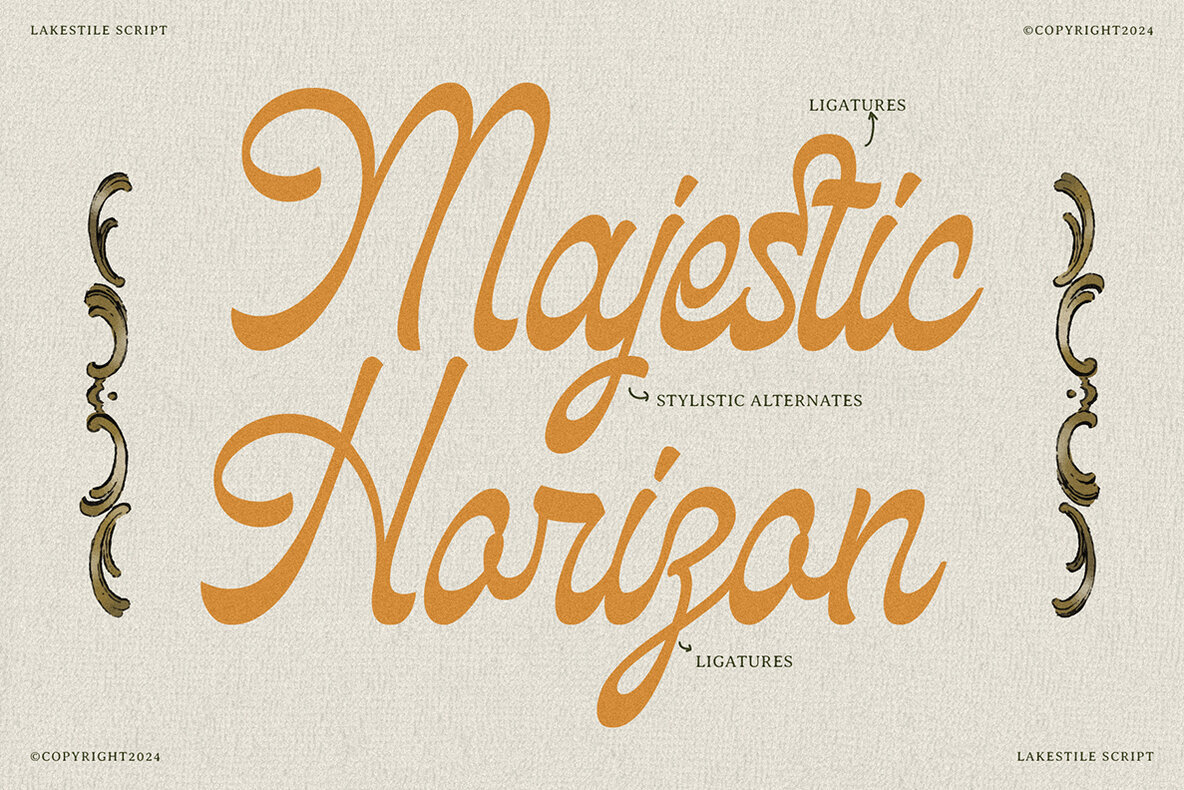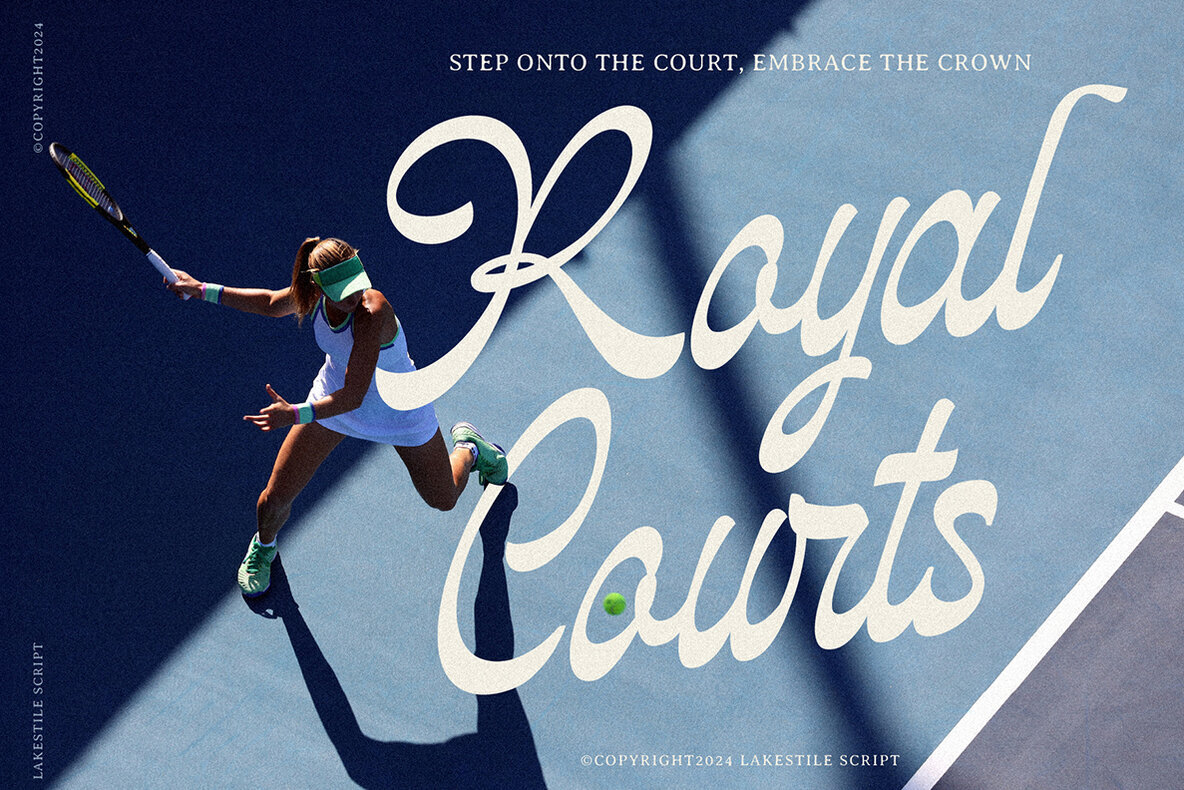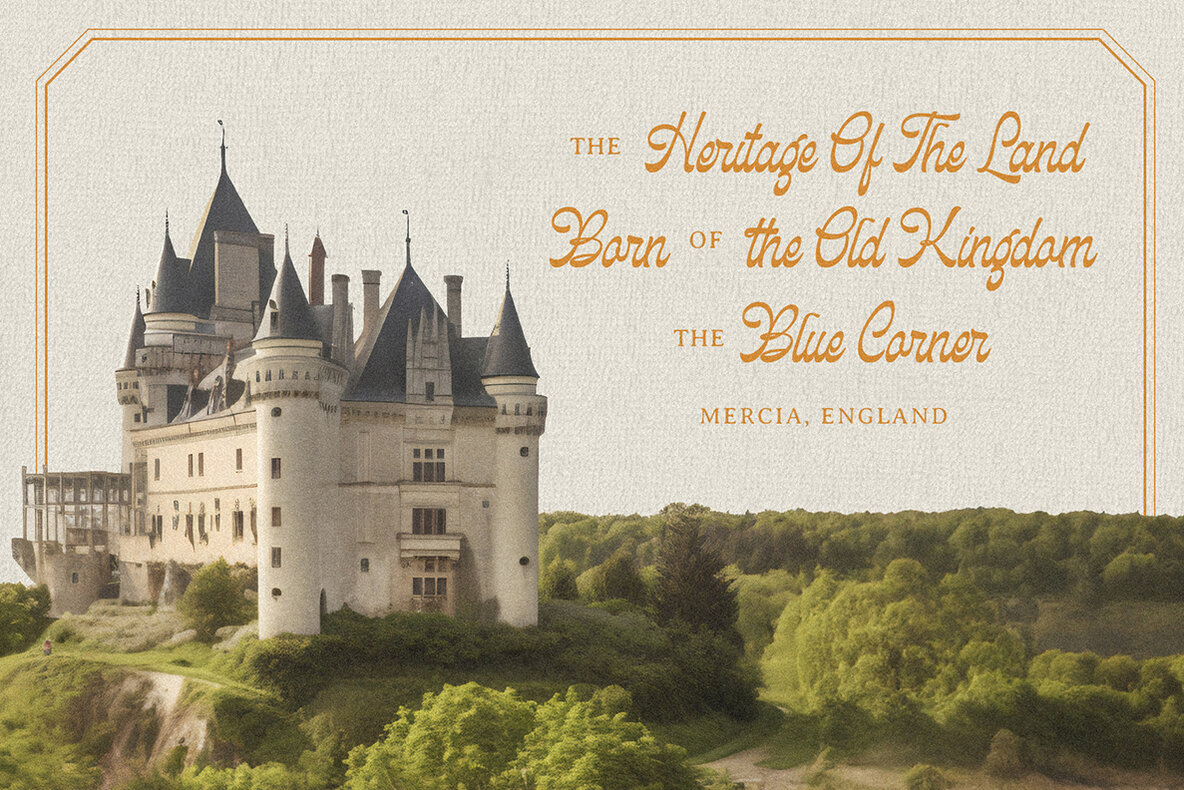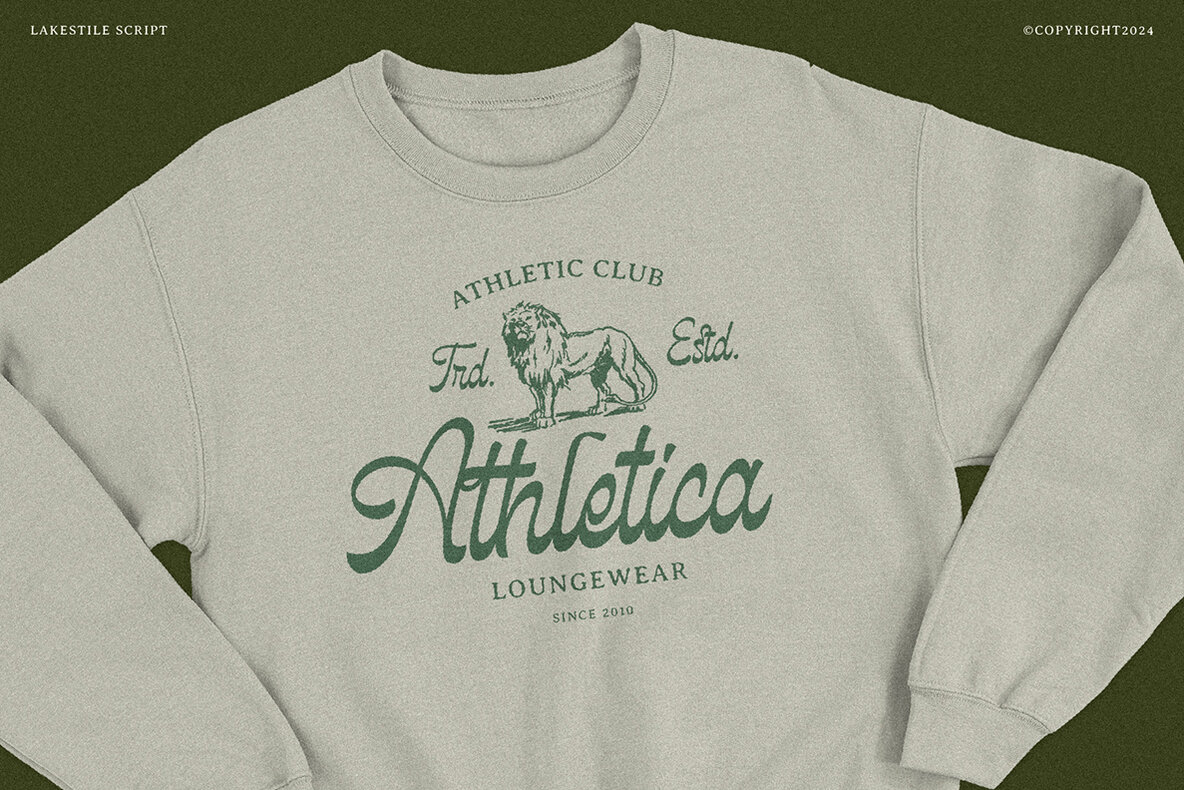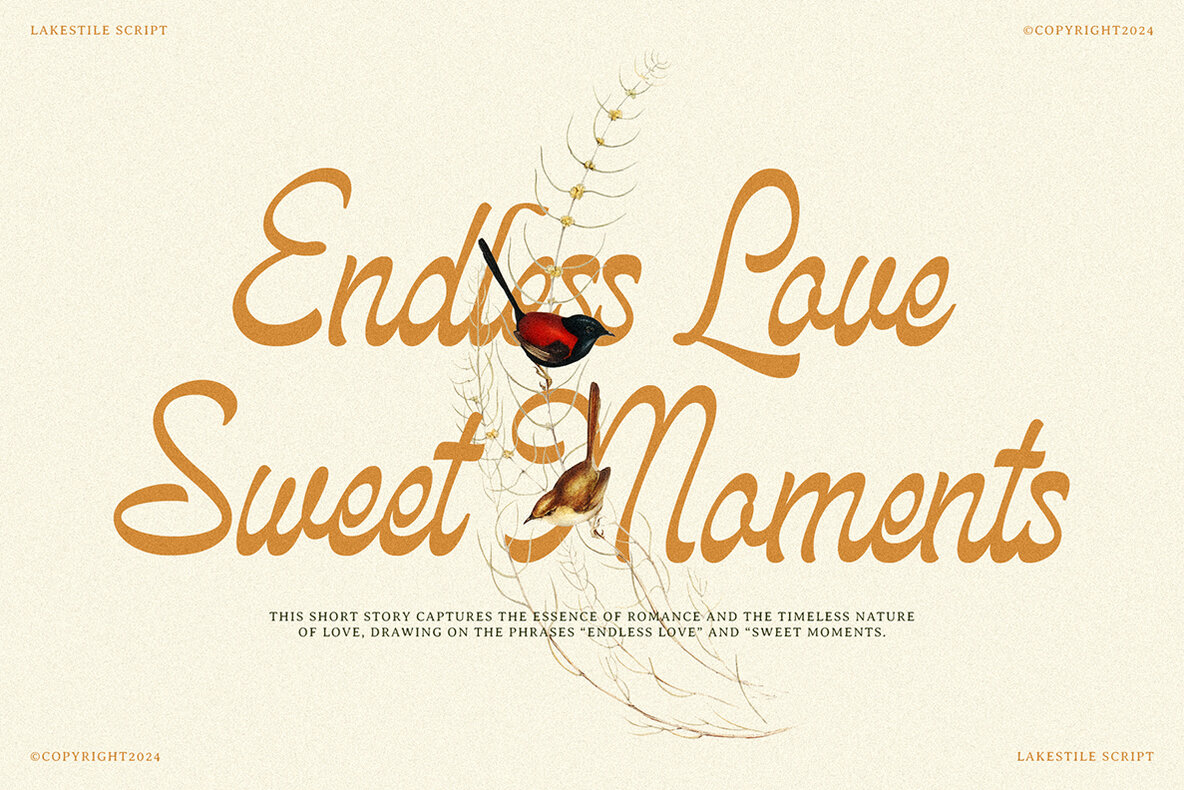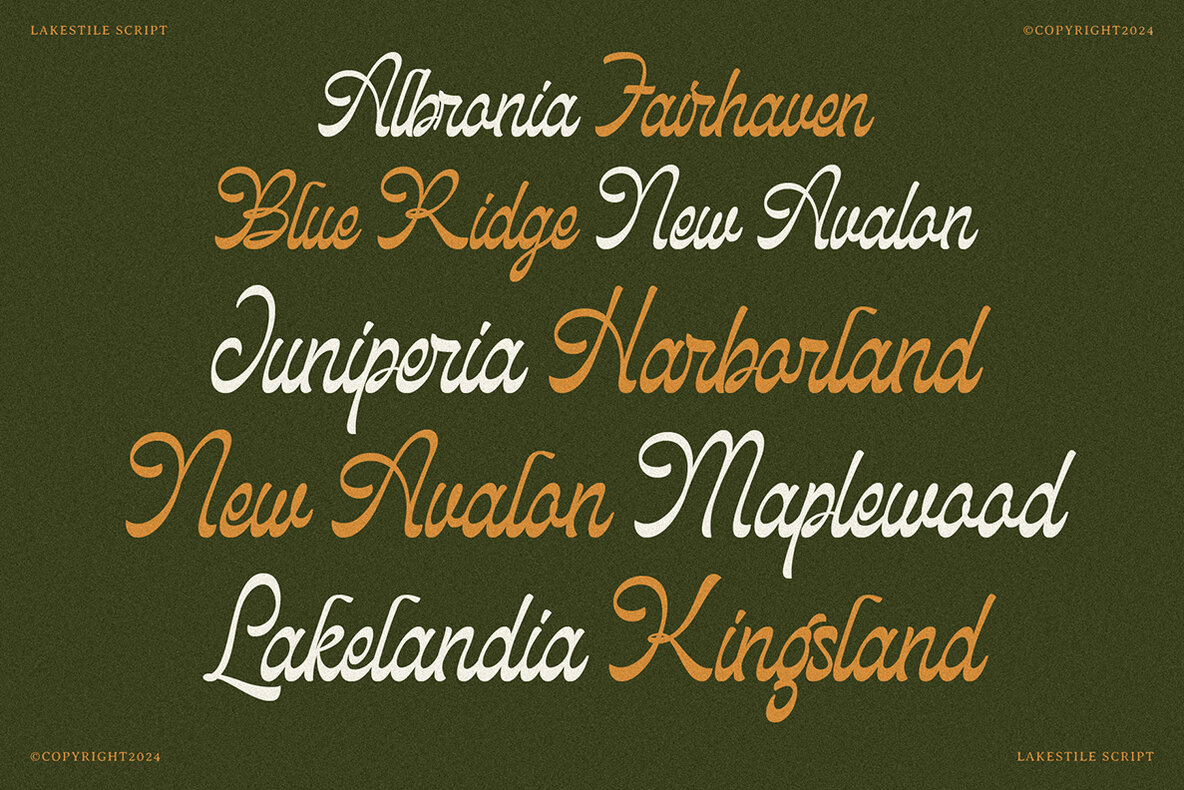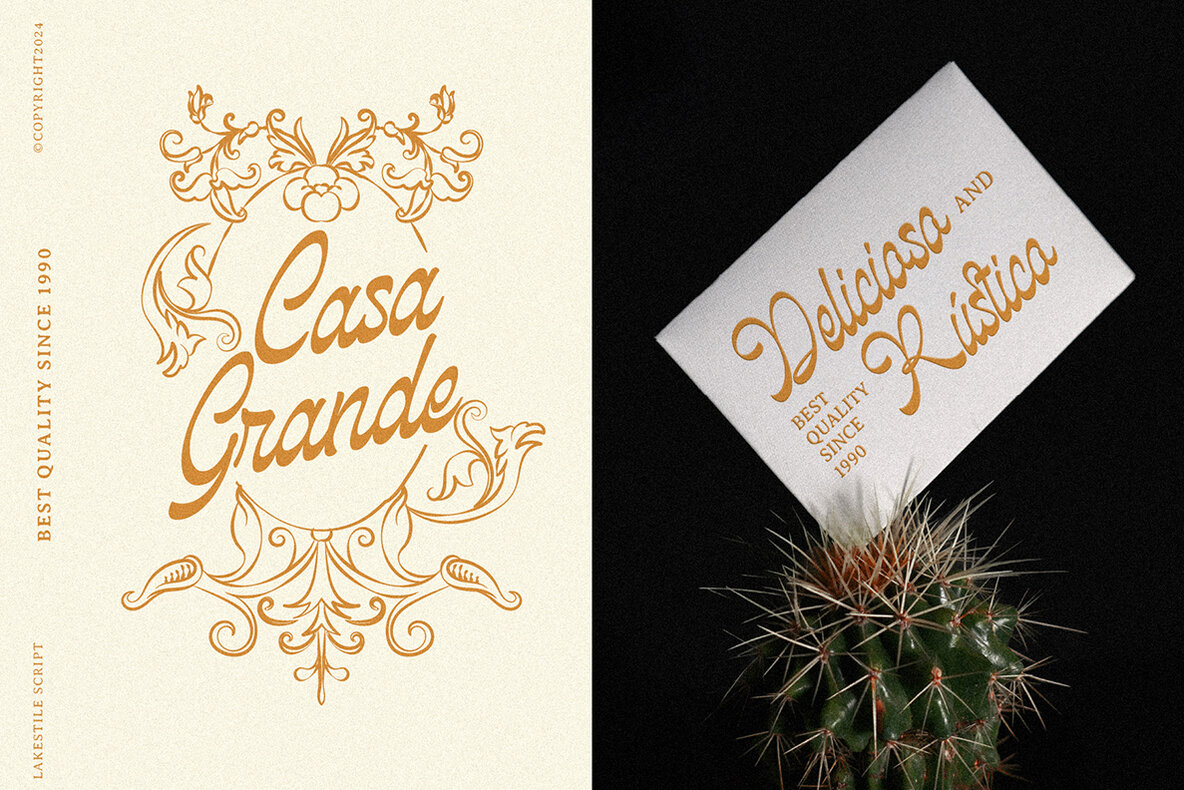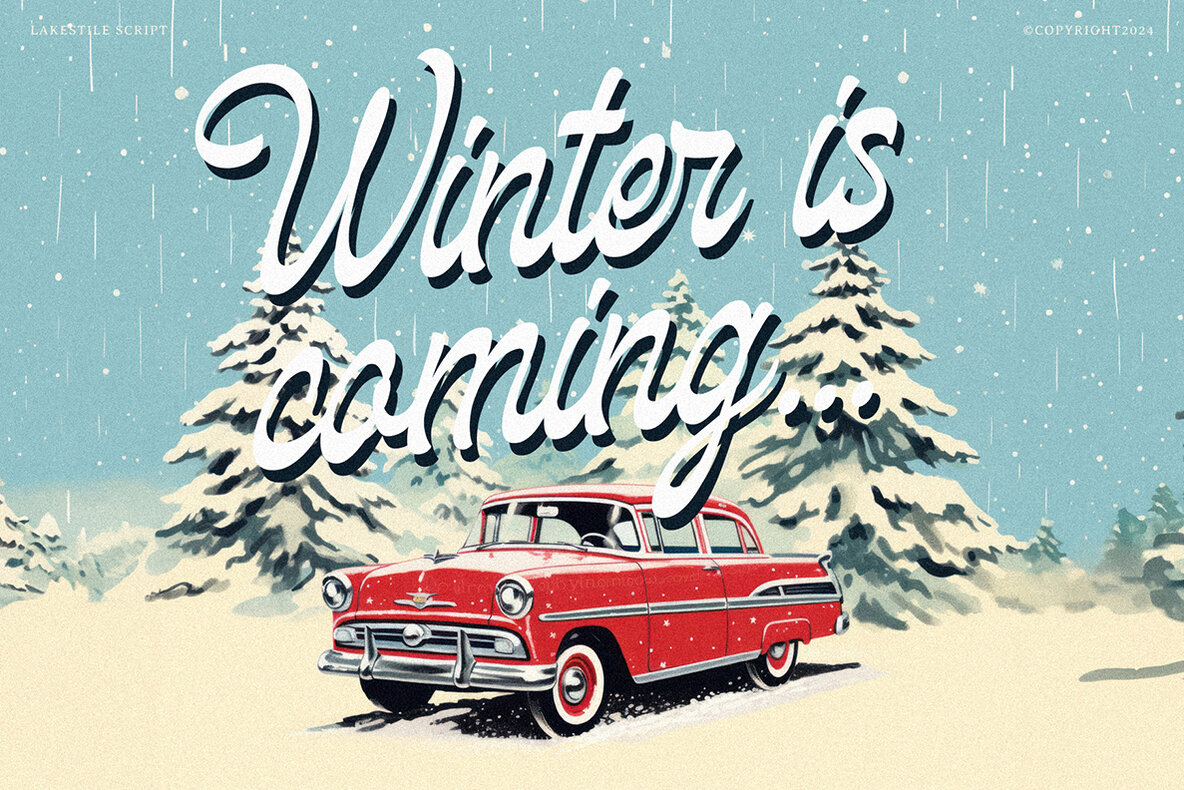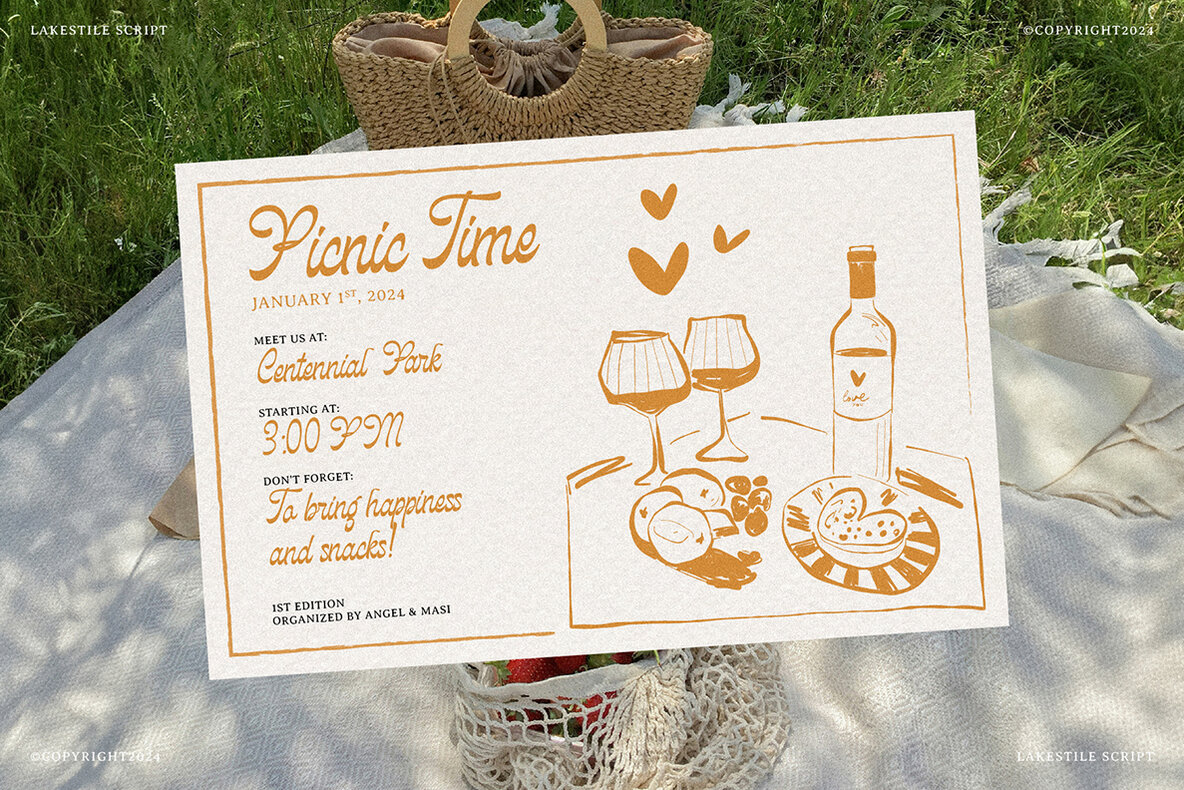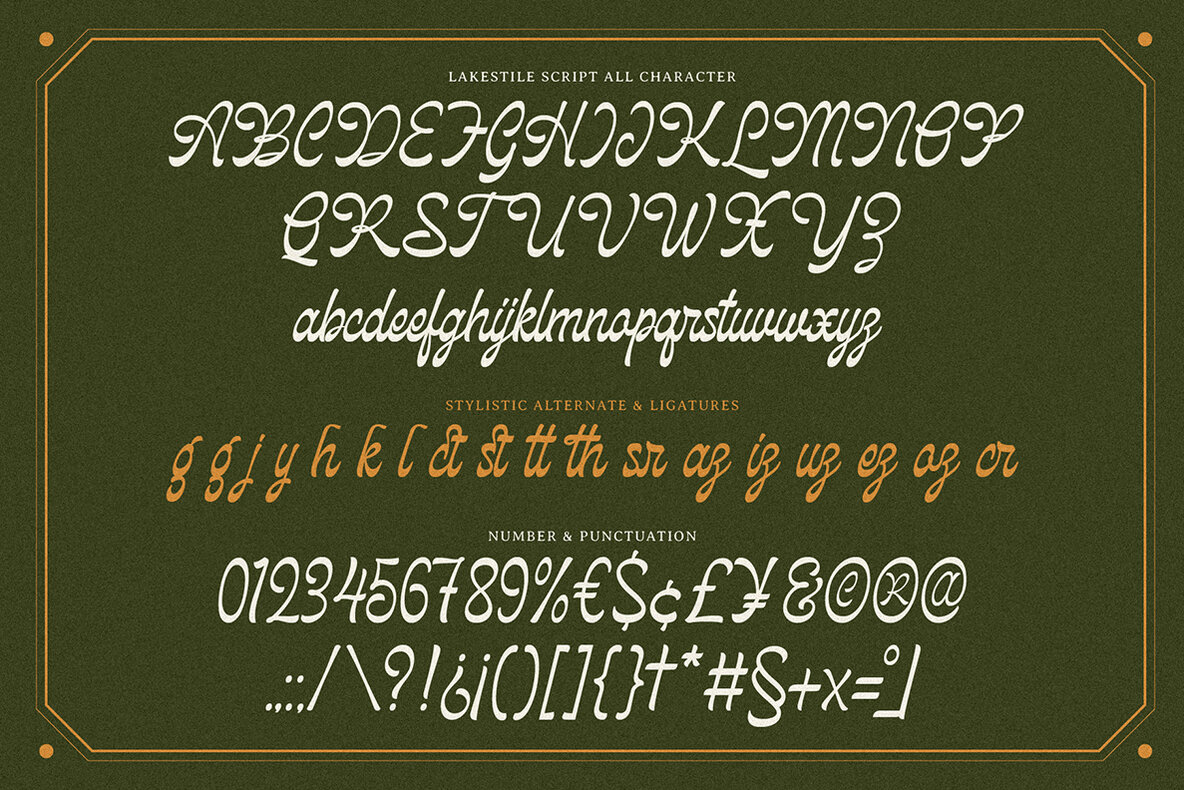
Lakestile Font
Lakestile Regular
Craving a blend of timeless elegance and contemporary flair? Discover Lakestile, a classic vintage script font that marries traditional handwriting with modern nuances. Its beautiful reverse contrast in the glyphs adds a distinctive touch, making it a standout choice for any designer looking to infuse their work with character and style. Lakestile isn’t just about aesthetics; it’s a functional powerhouse, too. Packed with stylistic alternates, ligatures, and multilingual Latin support, this font adapts seamlessly to a wide range of creative projects. Whether you’re crafting attention-grabbing headlines, designing flyers, posters, greeting cards, or enhancing product packaging, Lakestile brings a touch of vintage charm to contemporary design. Perfect for everything from book covers to logotypes and album covers, Lakestile ensures your projects resonate with elegance and modernity.